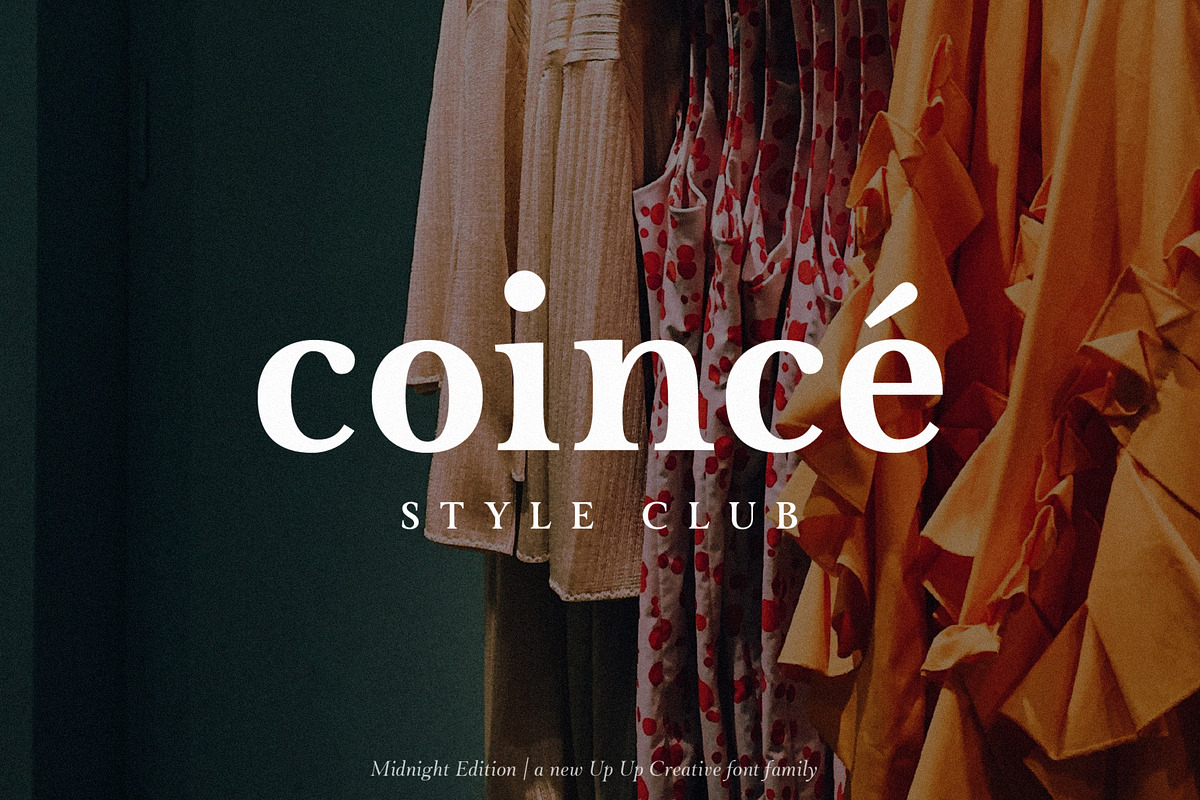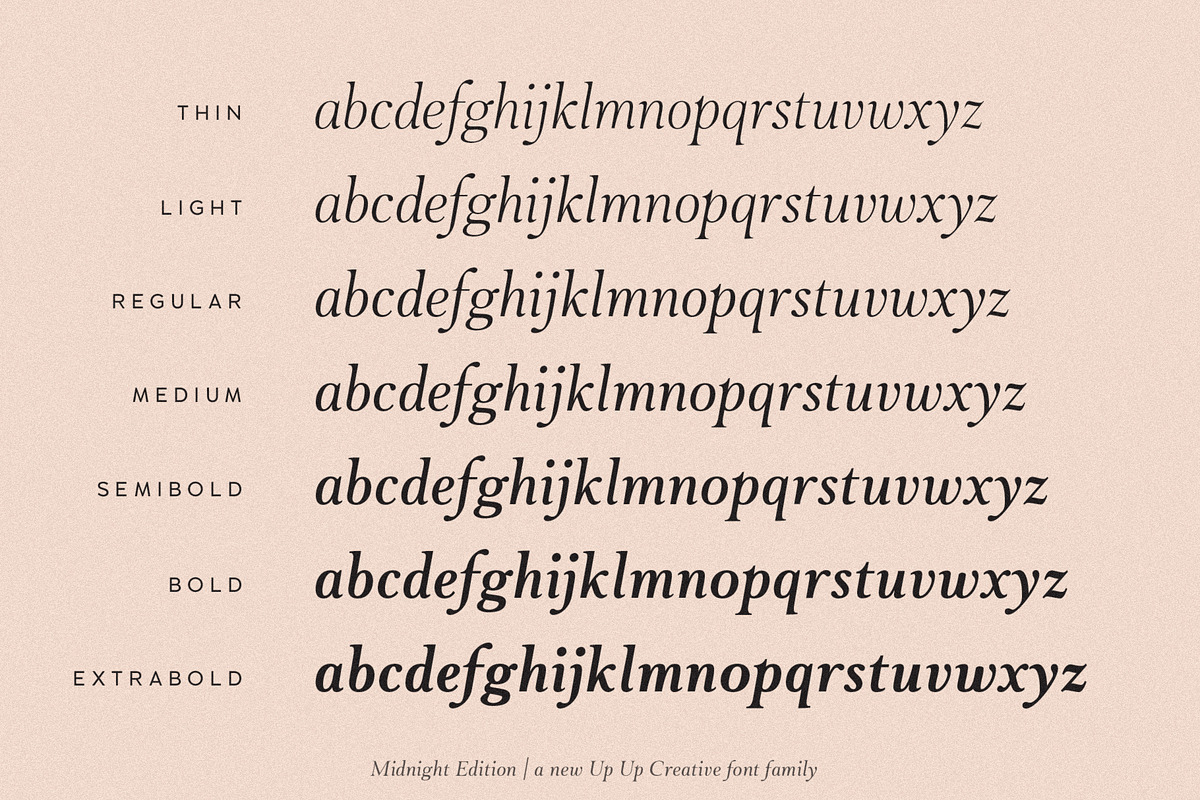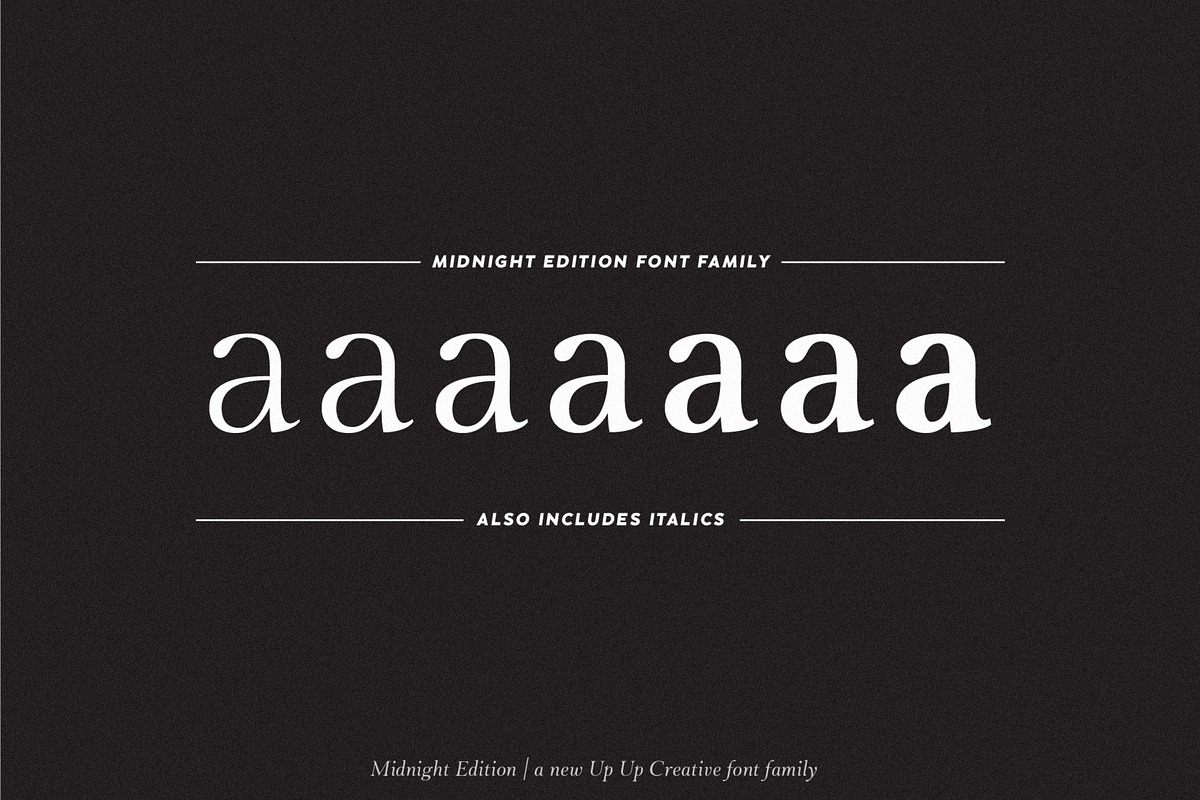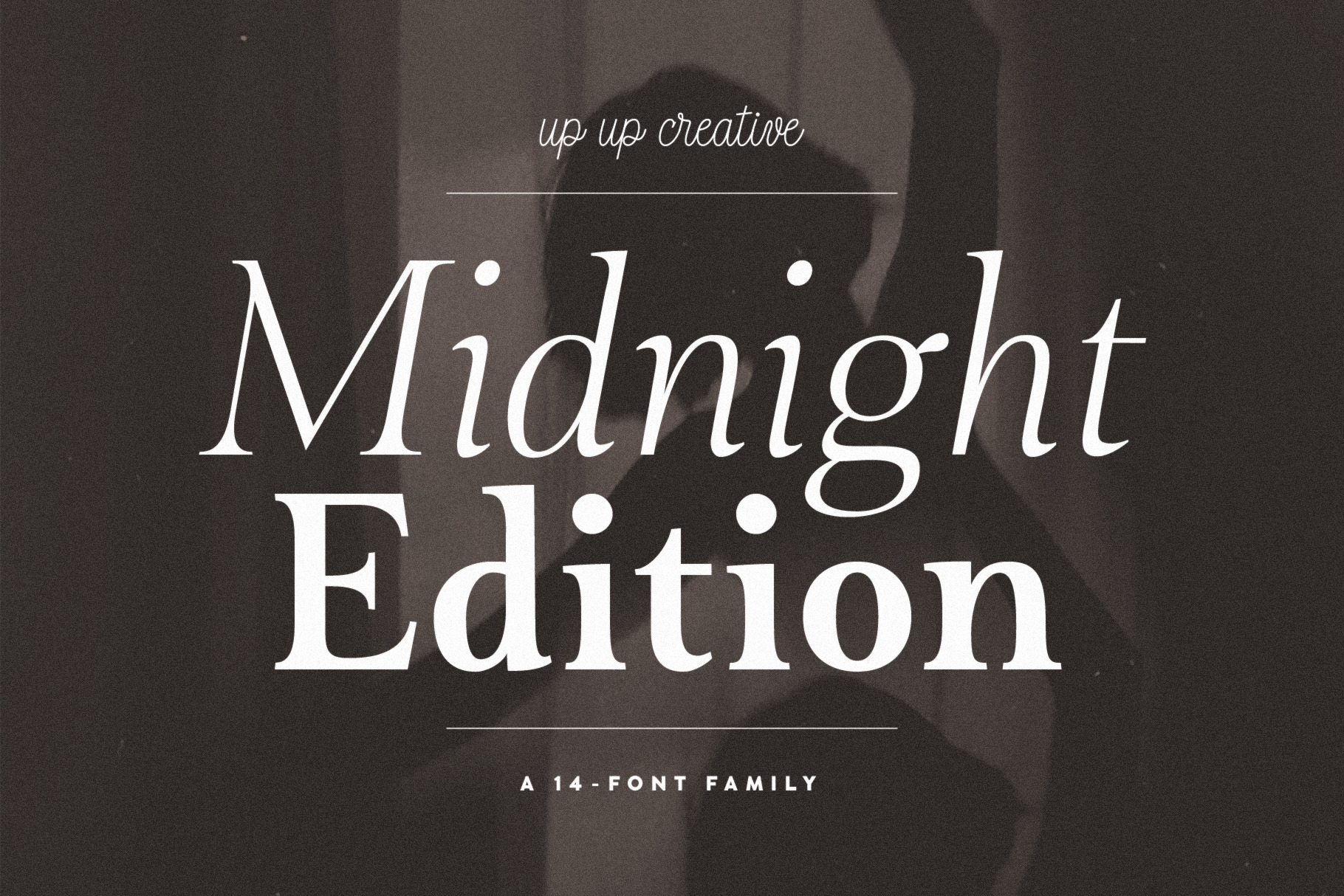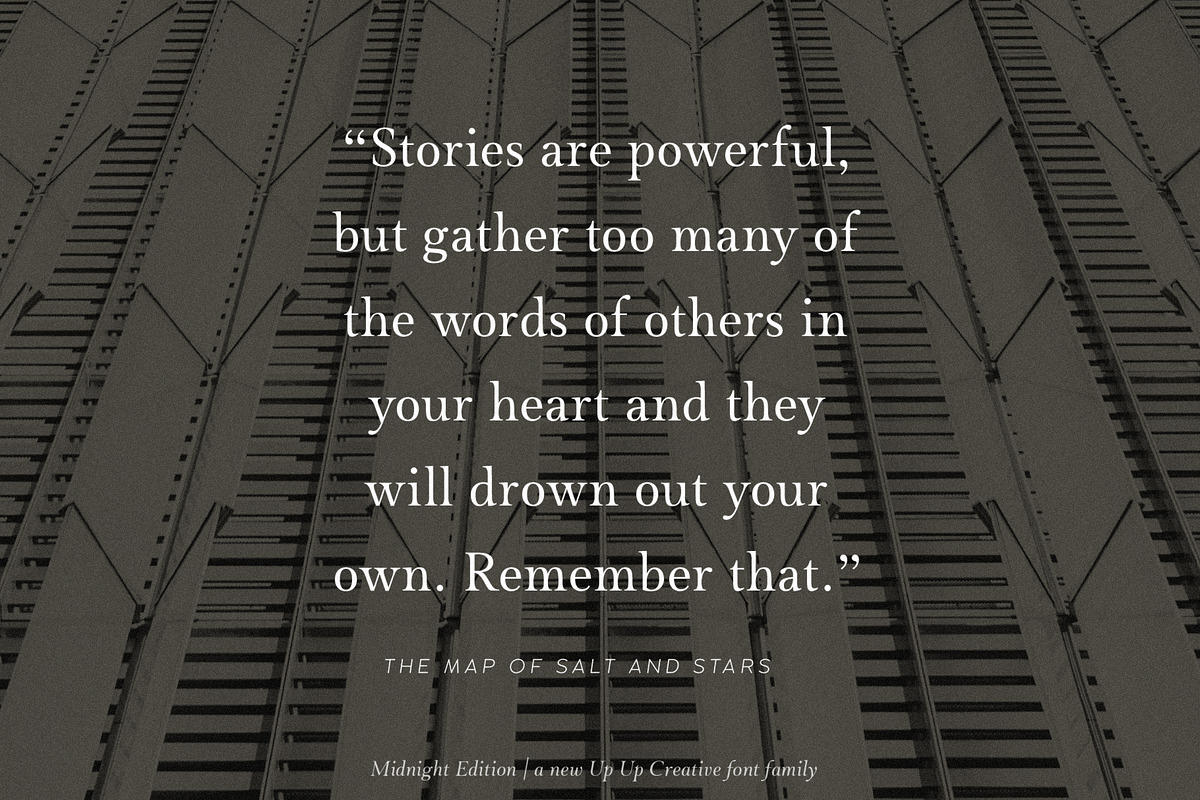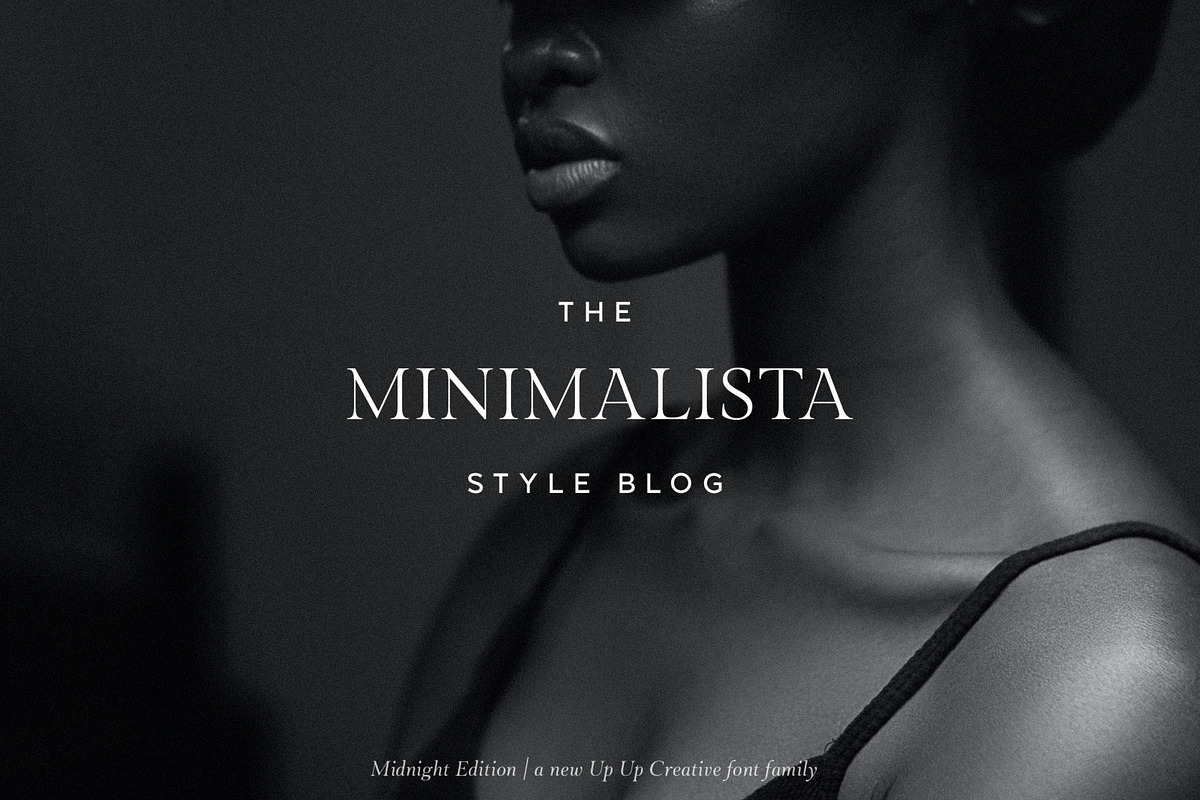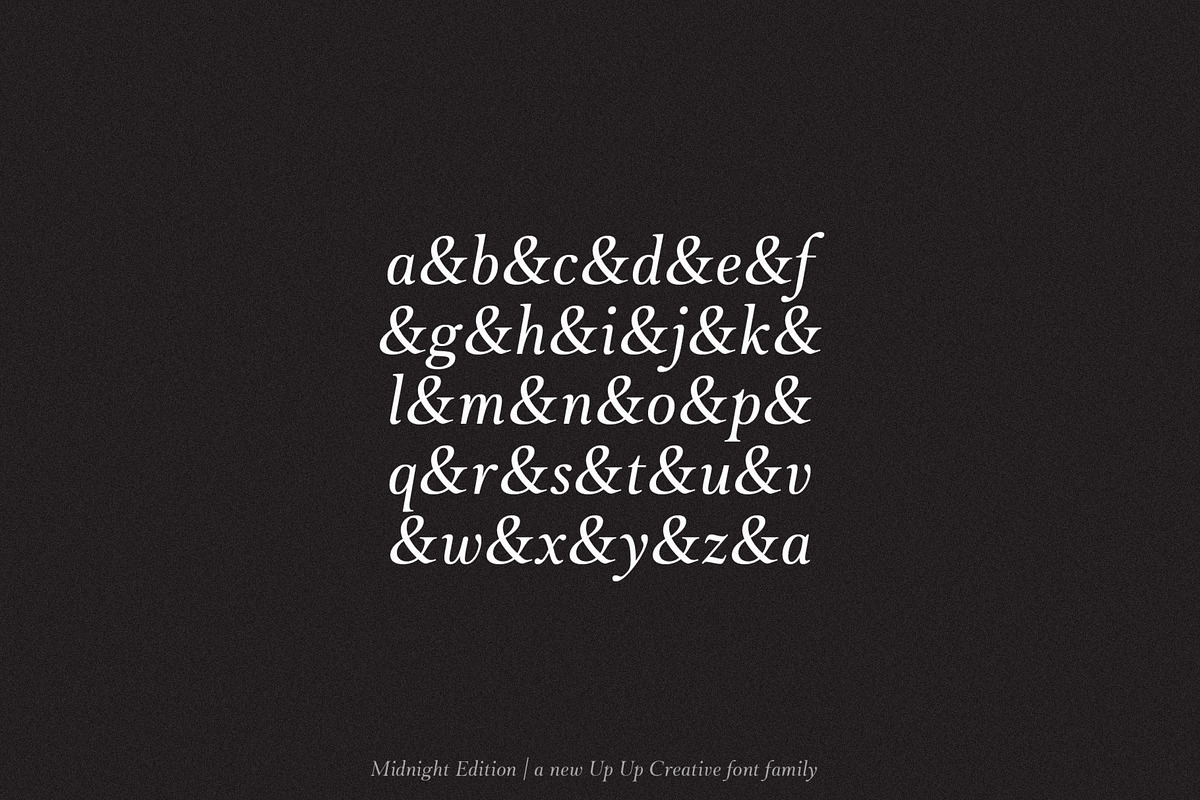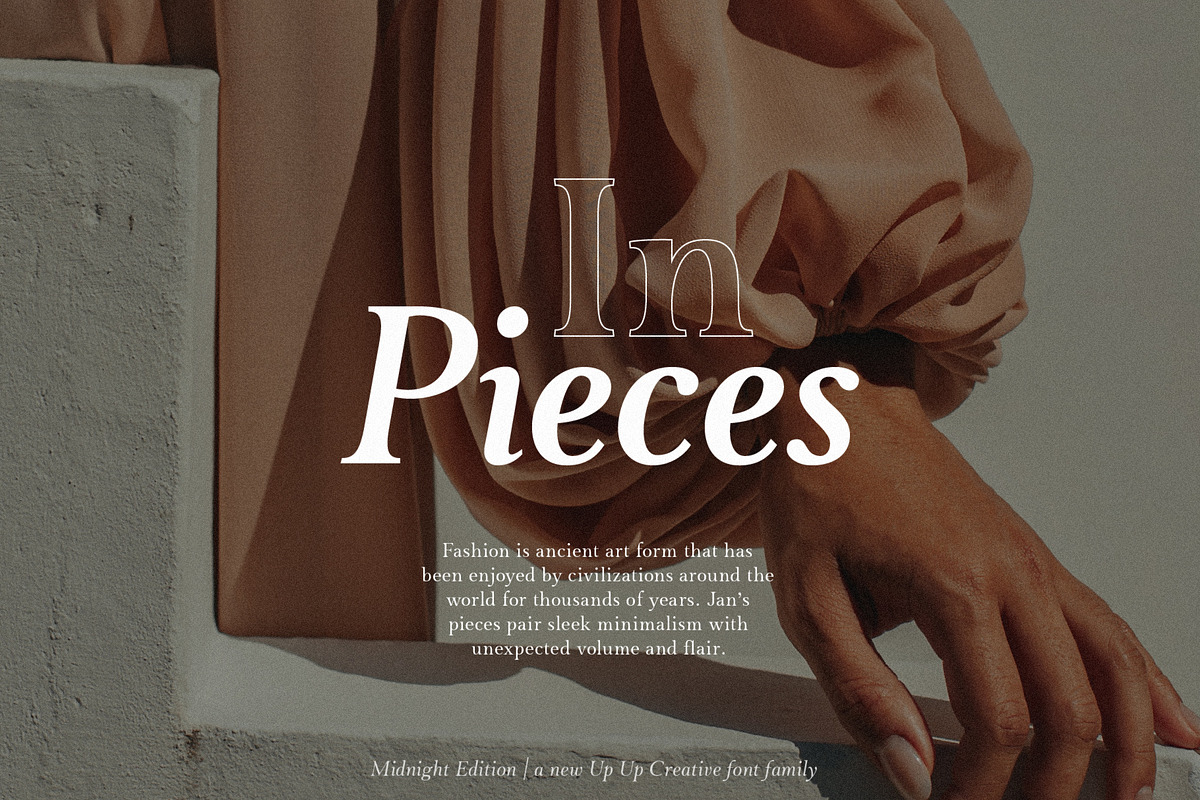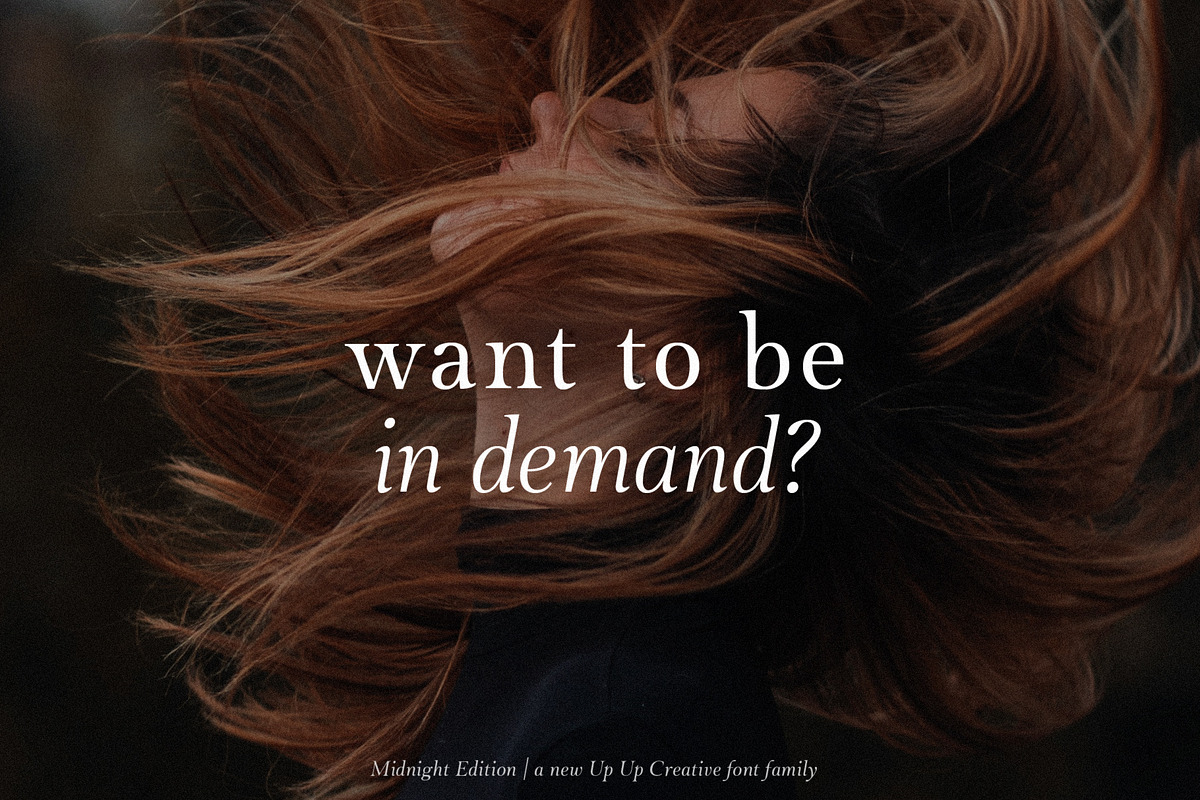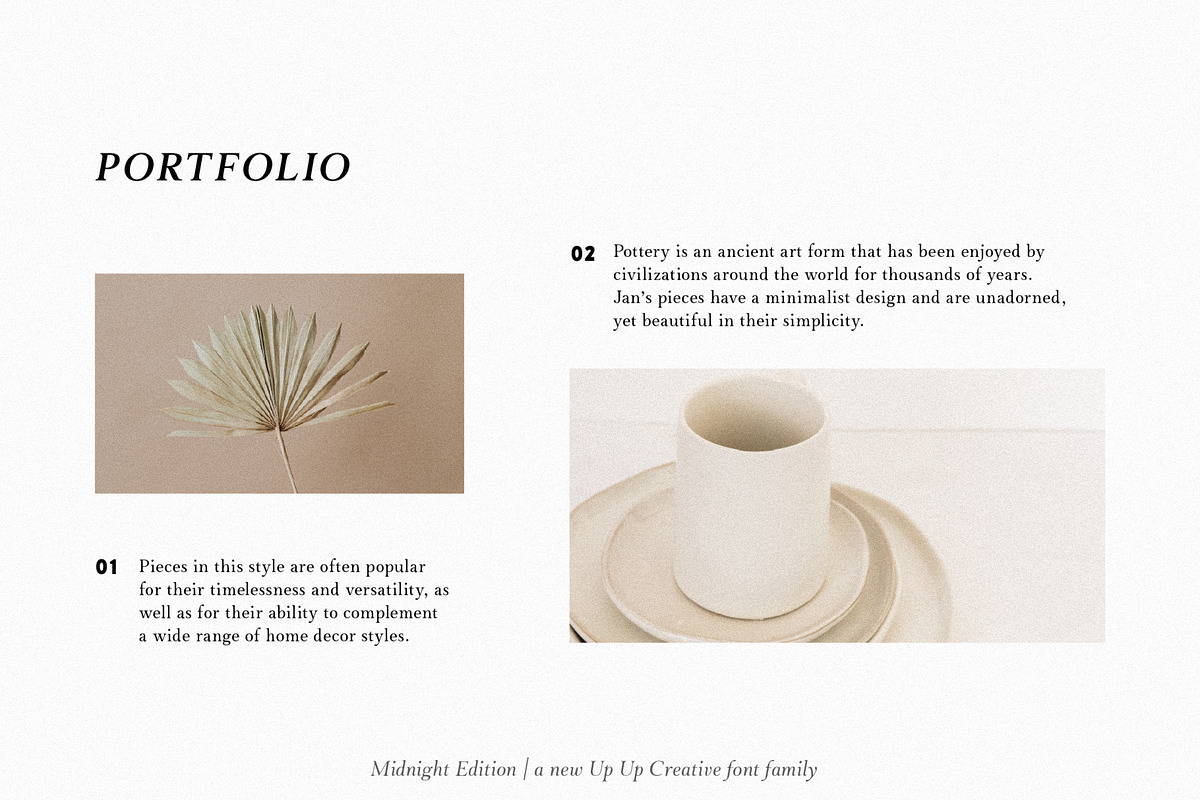
Midnight Edition is a stylish serif font family that gives traditional serif design elements a modern feel, making it ideal for body text, headlines, and calls to action. Its clean lines, generous curves, and crisp details make it suitable for a wide range of design projects.
The Midnight Edition complete font family includes 14 fonts (7 weights, each with an upright and an italic version). Each weight and style includes over 400 glyphs — including 10 standard ligatures and a smattering of character variants — and supports over 200 languages.